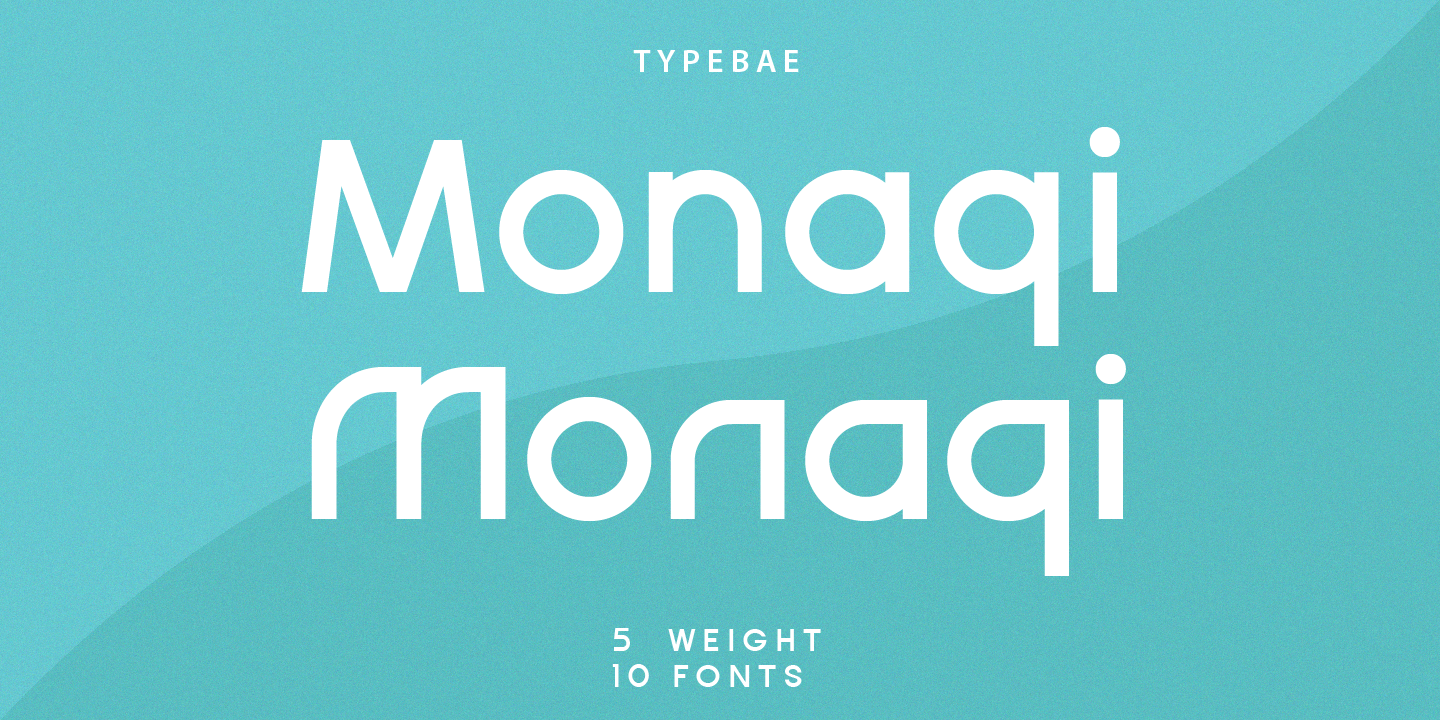
This luxurious font is perfect for high-end fashion brands, exclusive jewelry marketing, premium cosmetics packaging, luxury resort branding, upscale real estate materials, distinguished hospitality venues, sophisticated lifestyle magazines, and elite service providers. Its opulent character makes it ideal for projects requiring aristocratic elegance and refined exclusivity.
Monaqi Font is exciting because it captures the essence of royal luxury and sophisticated refinement with letterforms that embody the grace and distinction of aristocratic heritage. The font features elegant proportions, refined curves, and subtle luxury details that reflect centuries of noble tradition and impeccable taste. Its distinguished personality instantly communicates exclusivity, prestige, and the timeless appeal of authentic aristocratic elegance.
The Monaqi Font family typically includes multiple prestigious weights and elegant variations, along with luxury ornaments, royal symbols, and aristocratic decorative elements. Many versions feature stylistic alternates, refined ligatures, and exclusive glyphs that enhance the luxurious aesthetic and premium positioning.
Whether you're developing ultra-luxury brands, exclusive membership organizations, or prestigious service providers, Monaqi Font Free Download provides authentic aristocratic authority with contemporary sophistication. This typeface transforms standard communications into distinguished proclamations that resonate with affluent clientele who expect nothing less than perfection and exclusivity. Its distinctive character adds immediate prestige and royal credibility while celebrating the enduring power of Monaqi Font Free Download and the timeless appeal of aristocratic refinement that commands respect in the most exclusive circles.